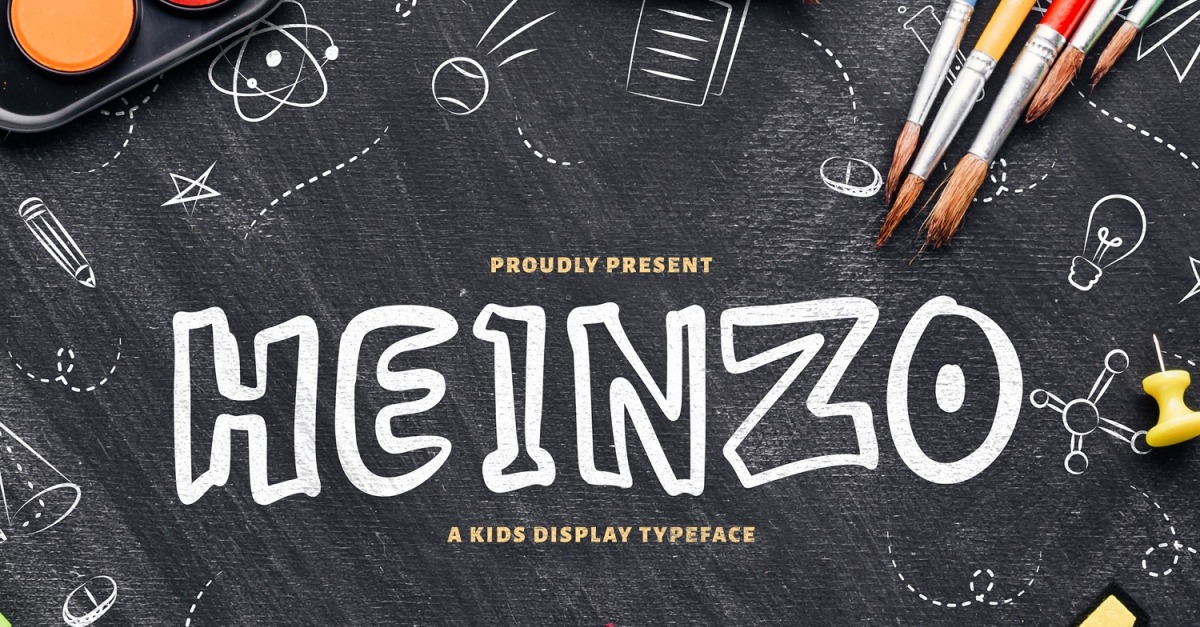
Heinzo - Playful Display Font
Introducing Heinzo - Playful Display Font
Heinzo is a fun display font. Playful and fresh, this font will be a hit for each of your children or school projects!